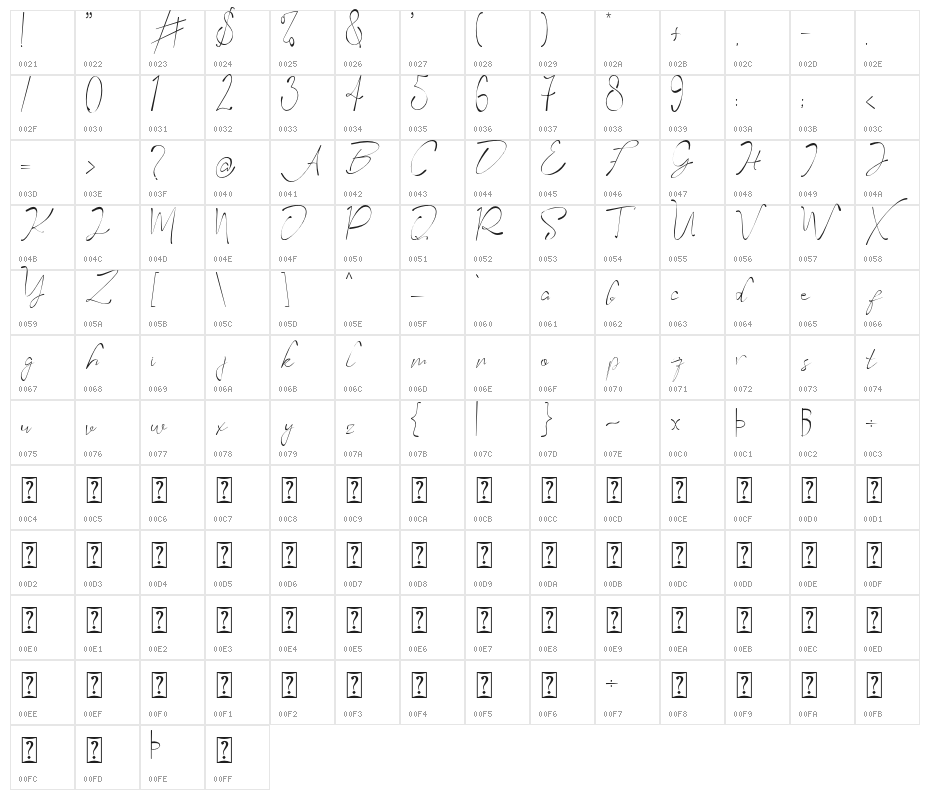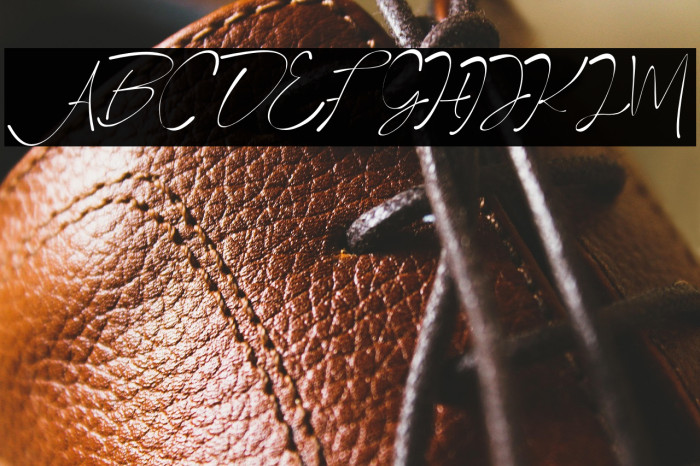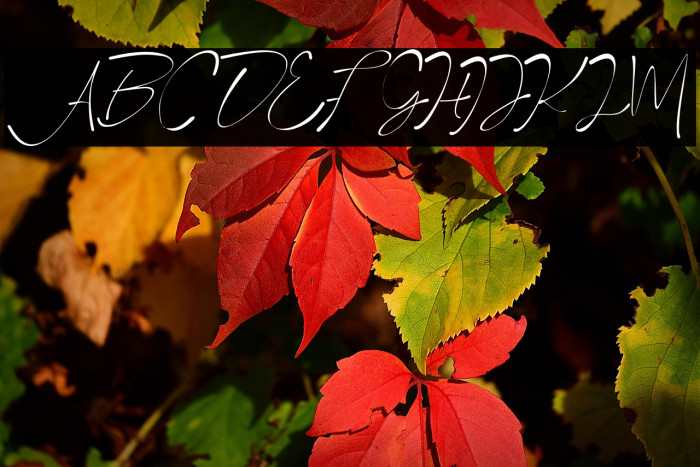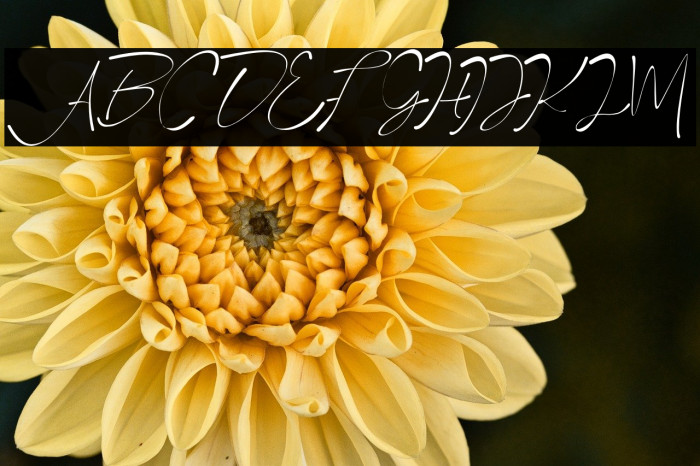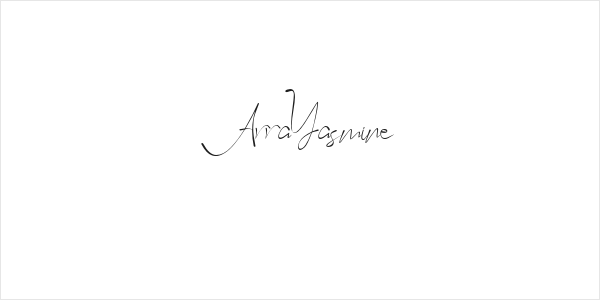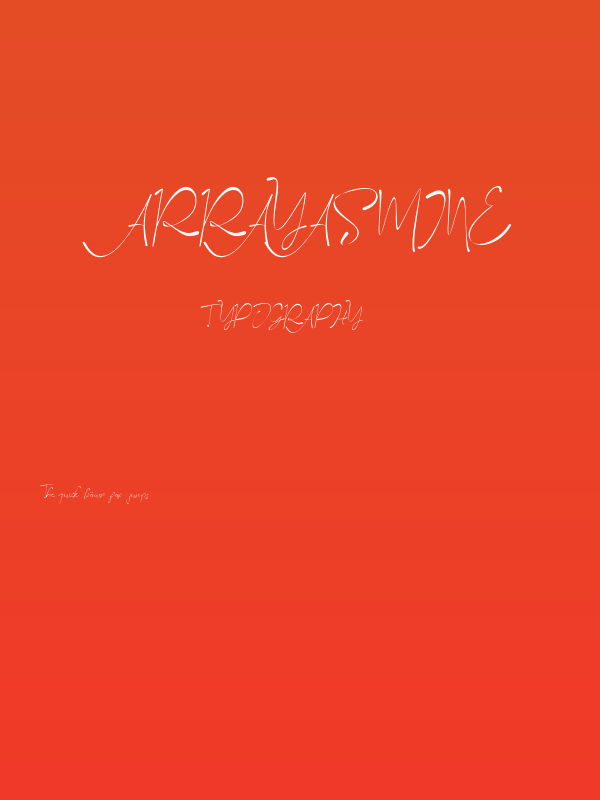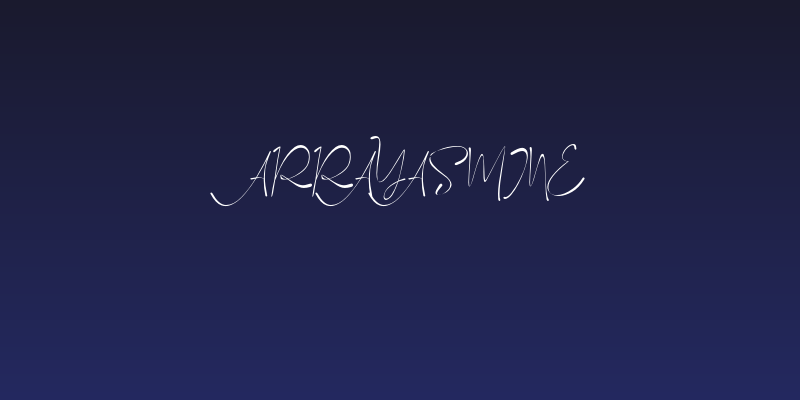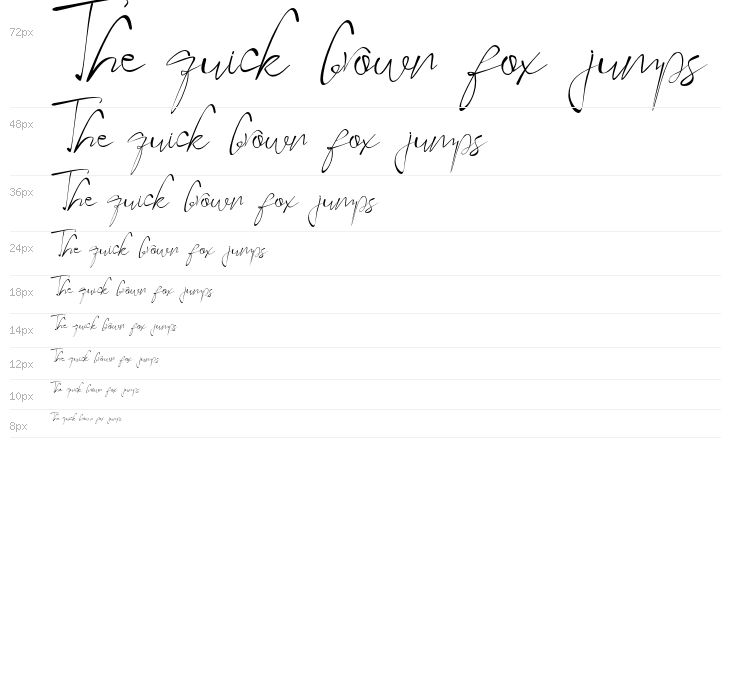
ArraYasmine Font
ArraYasmine Description
This elegant script font features a flowing, cursive style with a modern touch. The letters are gracefully connected, creating a sense of fluidity and movement. The uppercase characters are slightly more elaborate, with extended strokes and loops, while the lowercase letters maintain a consistent, smooth appearance. The numerals are stylishly designed to match the overall aesthetic, and the special characters are thoughtfully integrated to complement the script. This font exudes sophistication and charm, making it suitable for a variety of creative projects.
| Proposed Projects | Ideal for wedding invitations, branding, greeting cards, and elegant packaging designs. |